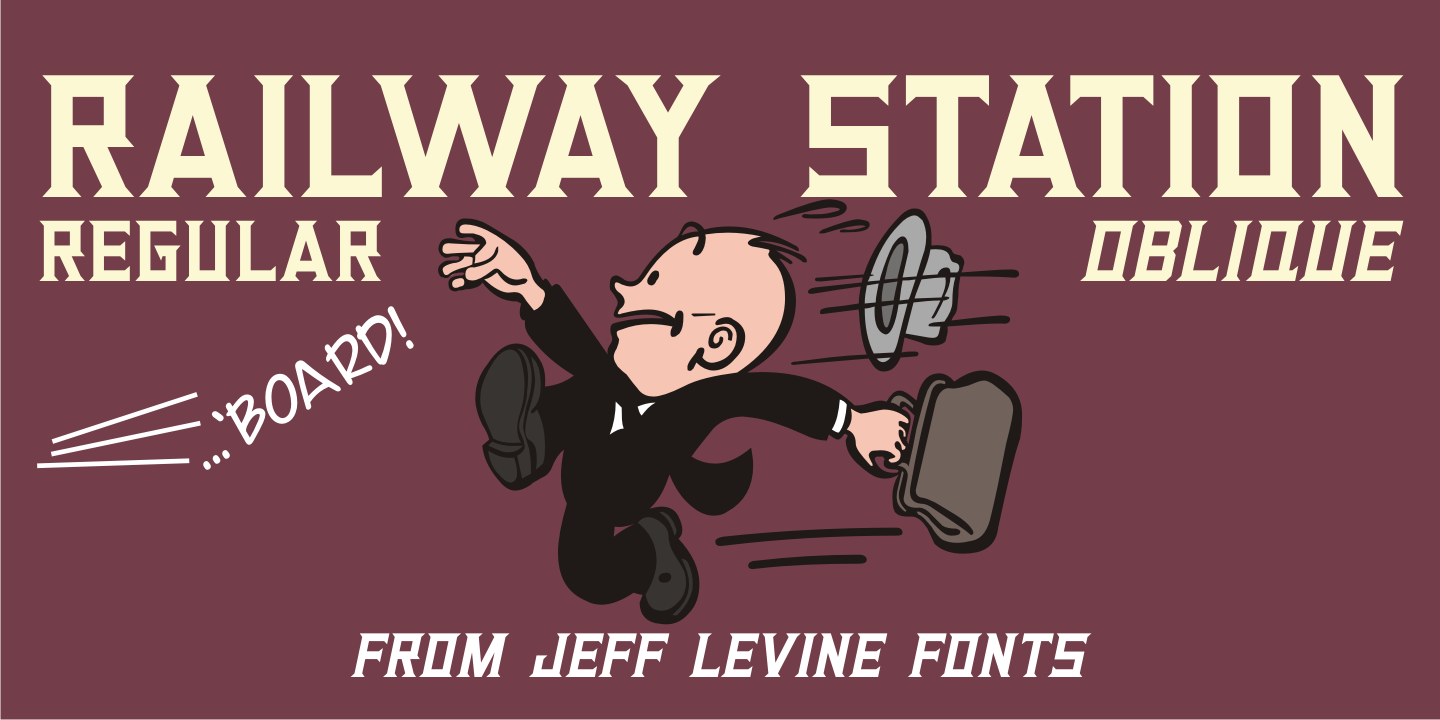
Railway Station Font is perfect for vintage travel branding, classic train station signage, railway museum displays, nostalgic transportation designs, industrial heritage projects, locomotive restoration graphics, historical railway documentation, and authentic designs that require railroad heritage and transportation authenticity.
This font is exciting because it captures the golden age of rail travel through its robust letterforms that echo the sturdy reliability and industrial craftsmanship of classic train stations and railway infrastructure. The authoritative character design embodies the romance and adventure of locomotive journeys, making it perfect for brands seeking to convey heritage, reliability, and the spirit of great adventures.
Railway Station Font belongs to the industrial display font family, featuring railway styling and transportation elements that enhance its authenticity for travel and heritage-focused design applications.
Whether you're creating transportation heritage branding or vintage travel graphics, Railway Station Font Free Download delivers maximum industrial authenticity and travel nostalgia. This typeface perfectly captures the essence of railway culture while maintaining excellent functionality for contemporary applications. The font's commanding presence works magnificently in transportation communications, heritage materials, and travel branding, providing superior readability while maintaining its railway character that transforms any design with locomotive authority and creates memorable journey experiences across all media platforms and transportation communications.